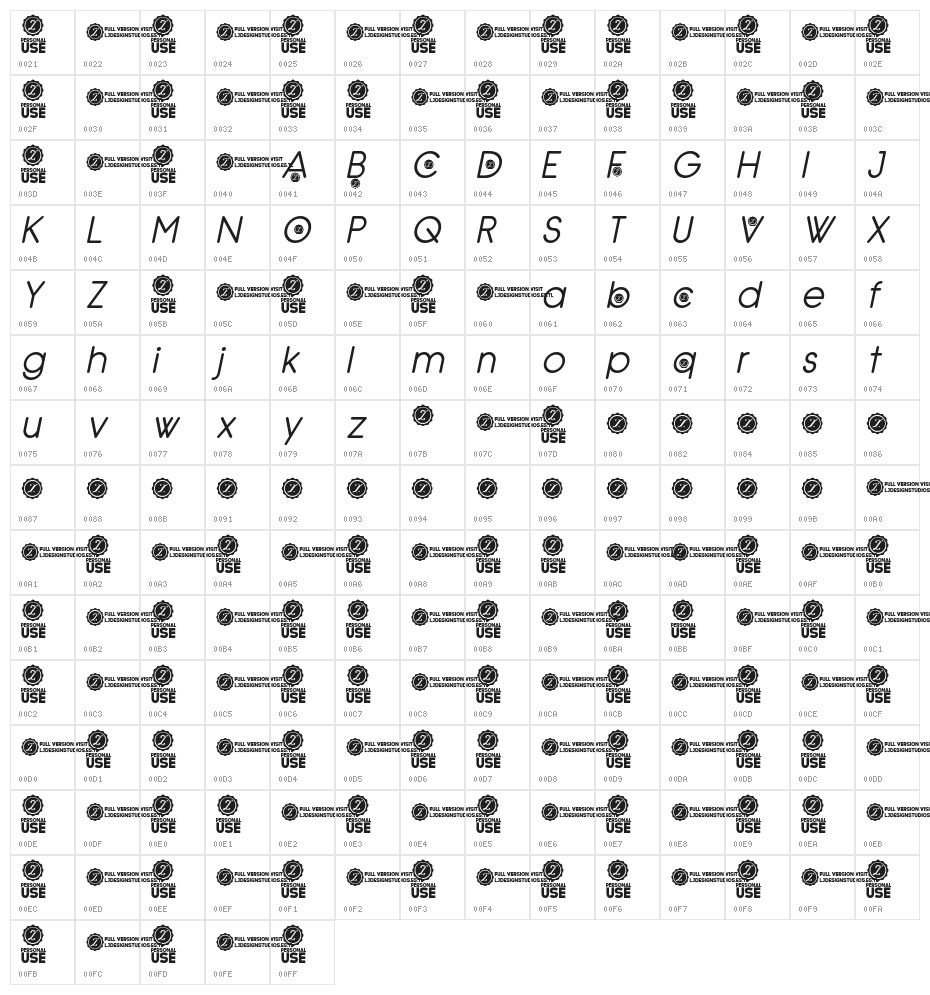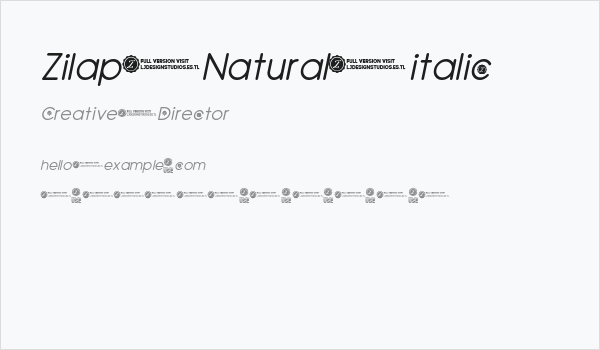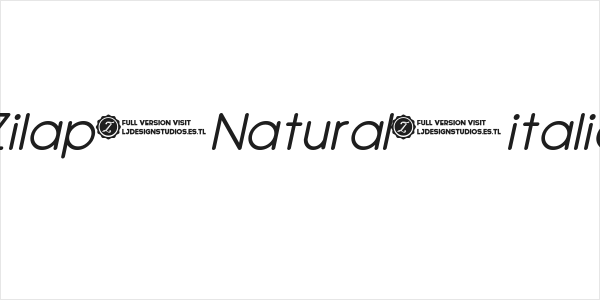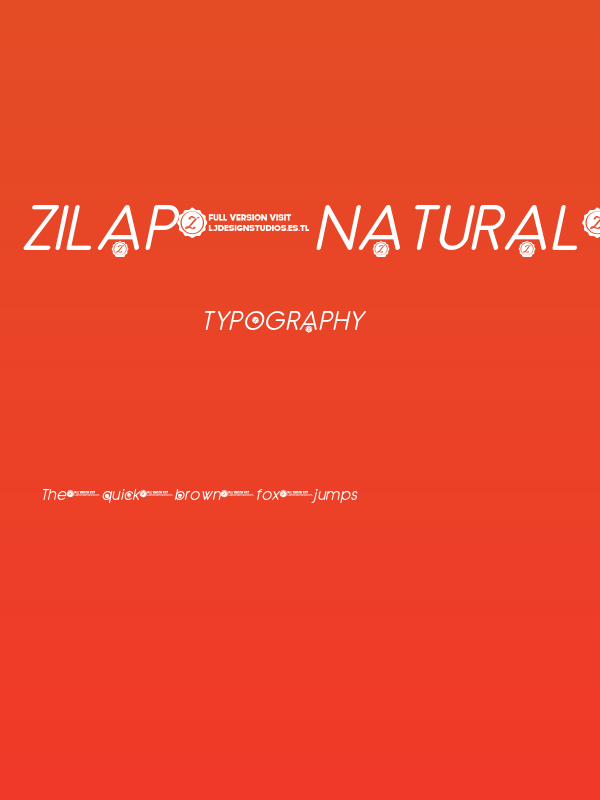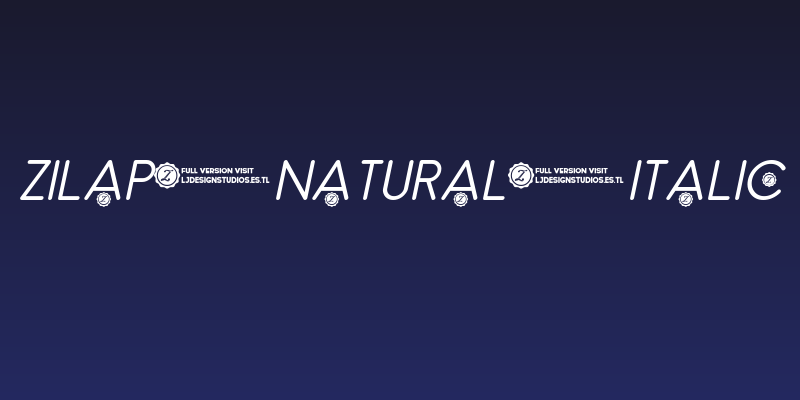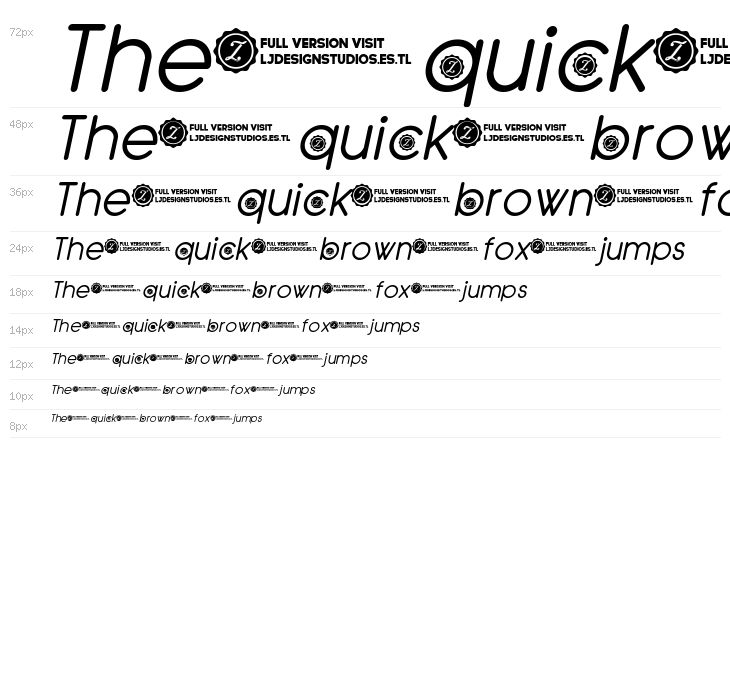
Zilap Natural italic Font
Zilap Natural italic Description
This font features a modern, italicized style with smooth, rounded edges and a clean, streamlined appearance. The characters are slightly elongated, giving them a sleek and contemporary look. The uppercase and lowercase letters maintain a consistent flow, with a slight slant that adds a dynamic feel. The numerals and special characters are designed to complement the alphabet, maintaining the same smooth curves and modern aesthetic. The font is versatile, suitable for a variety of design projects where a modern and stylish touch is desired.
Use CaseHeadlines, Logos, Digital media
Proposed ProjectsIdeal for branding, advertising, and digital media projects that require a modern and stylish look.